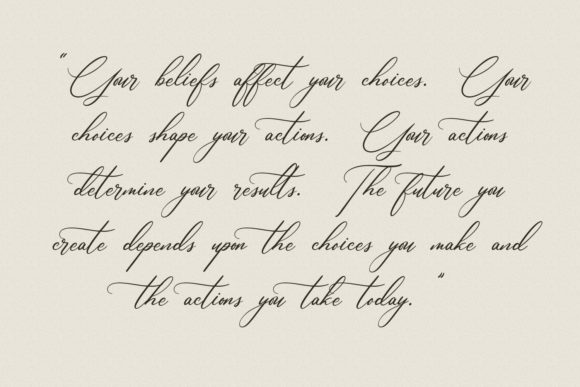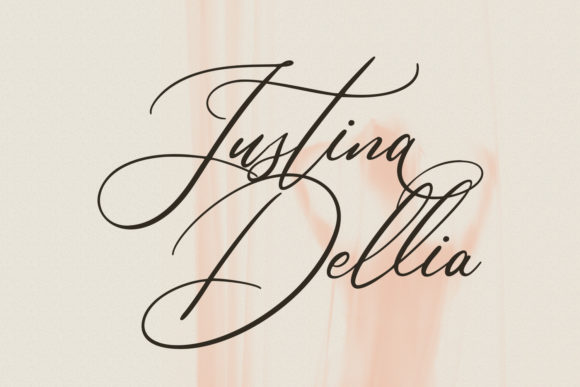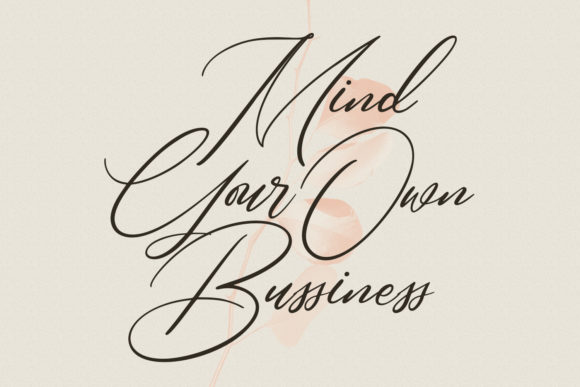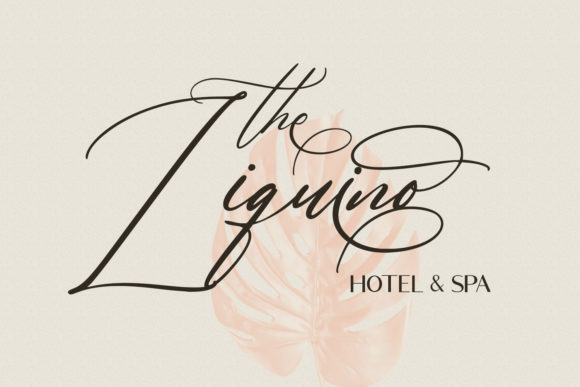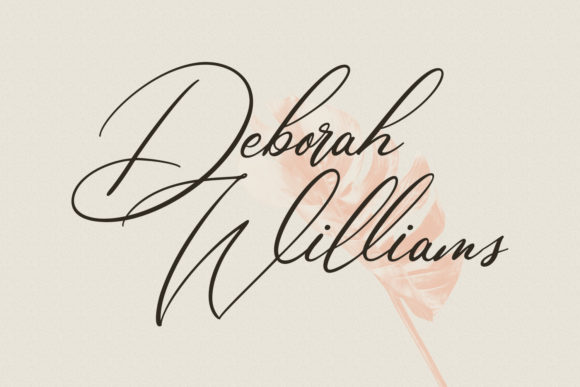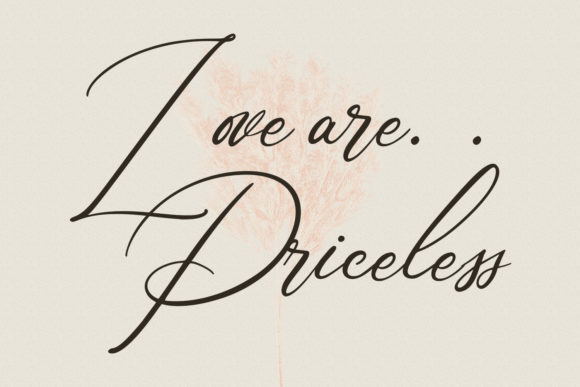
Astafloria Font: Elevate Your Designs with Elegance and Romance
In the world of typography, few fonts manage to capture the essence of elegance and romance as effectively as Astafloria. This stunning script font, characterized by its thin letters and sophisticated flair, has become a go-to choice for designers and crafters looking to infuse their projects with a touch of class and emotional depth. In this article, we’ll explore the unique features of Astafloria, its versatility, and why it has become a favorite among creative professionals.
The Essence of Astafloria
Astafloria is a thin lettered and elegant script font that exudes sophistication and charm. Its delicate strokes and graceful curves make it an ideal choice for projects where a high level of refinement is desired. Whether you’re working on a greeting card, a wedding invitation, or a magazine headline, Astafloria promises to add a romantic feel that captivates your audience.
One of the standout features of Astafloria is its incredible versatility. This script font can be used across a wide spectrum of applications, making it a valuable addition to any designer’s toolkit. Here are just a few examples of how Astafloria can elevate your designs:
- Greeting Cards: Add a personal touch to your greeting cards for birthdays, anniversaries, or holidays. Astafloria’s elegant script makes your messages feel more heartfelt and special.
- Wedding Invitations: Make your wedding invitations unforgettable with Astafloria. Its romantic and sophisticated look sets the tone for a beautiful and memorable event.
- Headlines and Titles: Use Astafloria to create eye-catching headlines and titles for magazines, blogs, or websites. Its unique style will make your content stand out and draw readers in.
- Branding and Packaging: For brands looking to communicate elegance, sophistication, and a personal touch, Astafloria can be a perfect fit for logos, product labels, and packaging designs.
Why Designers and Crafters Love Astafloria
Designers and crafters choose Astafloria for several compelling reasons:
- Elegance: Astafloria brings an unmatched level of elegance to any project. Its thin letters and flowing script convey a sense of luxury and refinement.
- Romance: For projects that require a romantic touch, such as wedding-related designs or Valentine’s Day cards, Astafloria is unparalleled in its ability to evoke emotion.
- Readability: Despite its delicate nature, Astafloria maintains excellent readability, making it suitable for both digital and print media.
- Flexibility: Astafloria can be used in a variety of sizes and colors without losing its charm, allowing designers to experiment with different styles and effects.
Tips for Using Astafloria Effectively
To get the most out of Astafloria, consider the following tips:
- Pair with Contrasting Fonts: Combine Astafloria with simpler, bold fonts to create a striking contrast that highlights its elegance.
- Choose Soft Color Palettes: Enhance Astafloria’s romantic feel by pairing it with soft, pastel colors or elegant metallic tones.
- Experiment with Ligatures: Take advantage of Astafloria’s ligatures to add a natural, handwritten feel to your text.
- Consider the Context: Make sure Astafloria aligns with the mood and message of your project. Its romantic connotation makes it perfect for projects that aim to evoke emotion.
Astafloria is more than just a font; it’s a design element that can transform your projects with its elegance and romantic charm. Whether you’re a professional designer or a crafter looking to add a personal touch to your creations, Astafloria offers a world of possibilities. Its versatility, readability, and emotional impact make it an invaluable asset in the world of typography. So, why settle for ordinary when you can make your designs extraordinary with Astafloria?